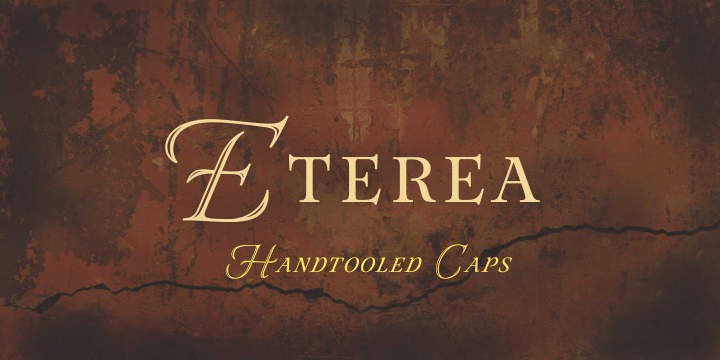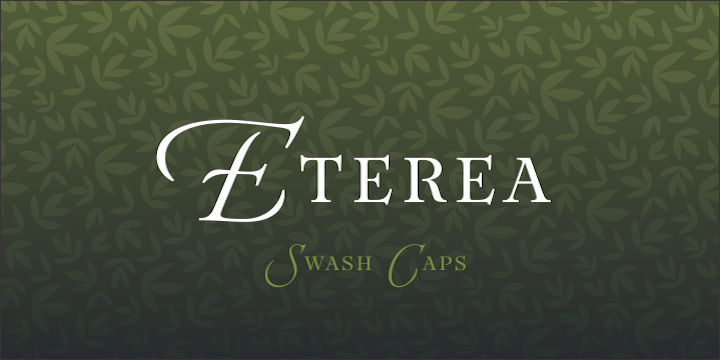
Eterea
Font Family by Corradine Fonts
Eterea is a formal font inspired in the monumental inscriptions of classic Rome, but not strictly sticking to the ancient roman typographic characteristics. Its unique look is the result of mixing diverse typographic styles, but mostly having traces from the 16th century transitional style. It bears a big difference of proportion between upper and lower case, additionally to the high case having much more ornamental traces.
Eterea has four different flavors of capitals which change very slightly in the cursive versions. In the italic versions, the lower case (actually small capitals) changes substantially its characters to make its reading more flowing and is not simply an inclined version of the letters. Eterea is a very expressive font, ideal for tittles and short texts of sober and elegant appearance.